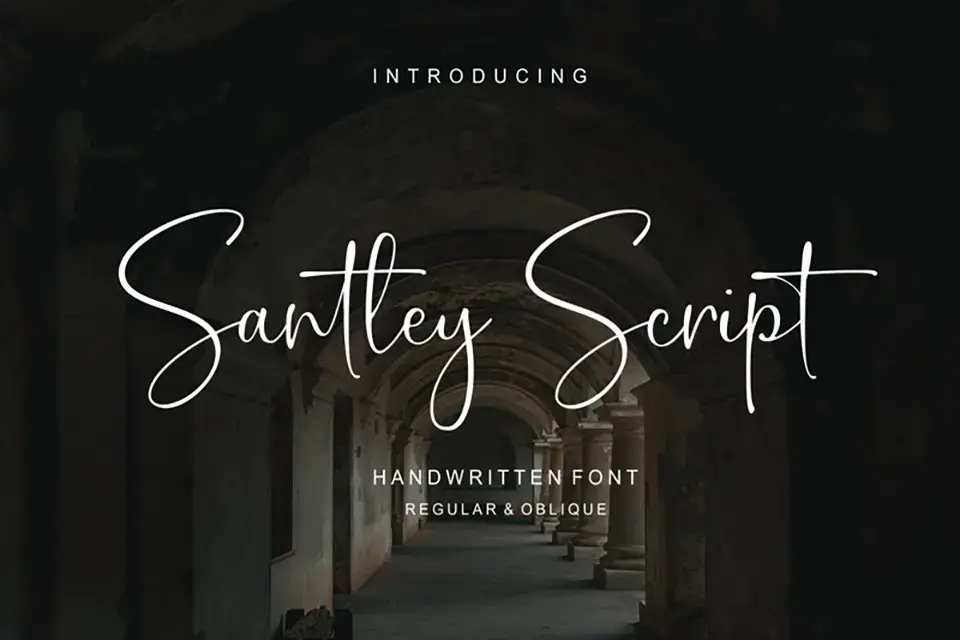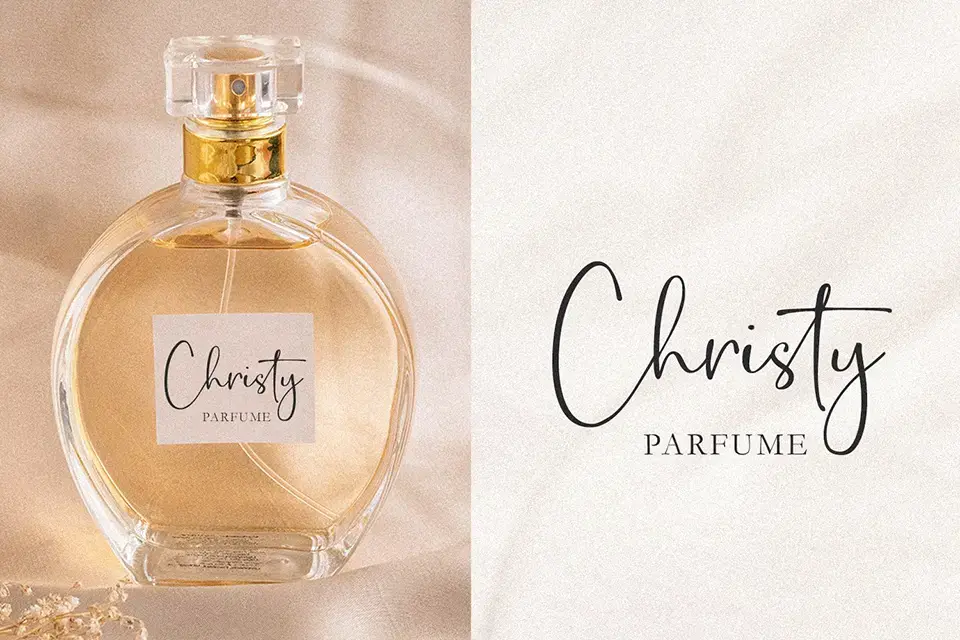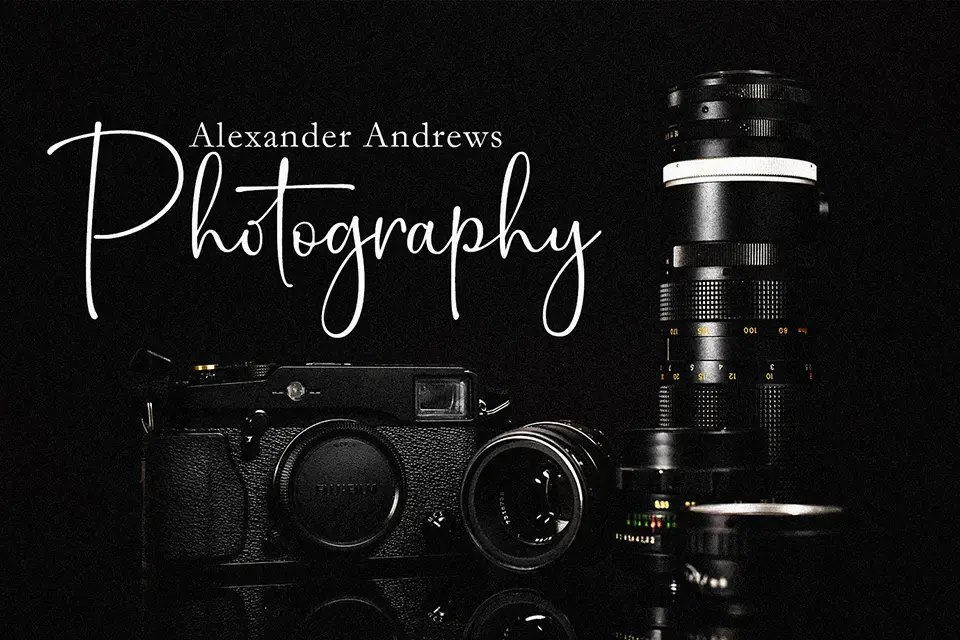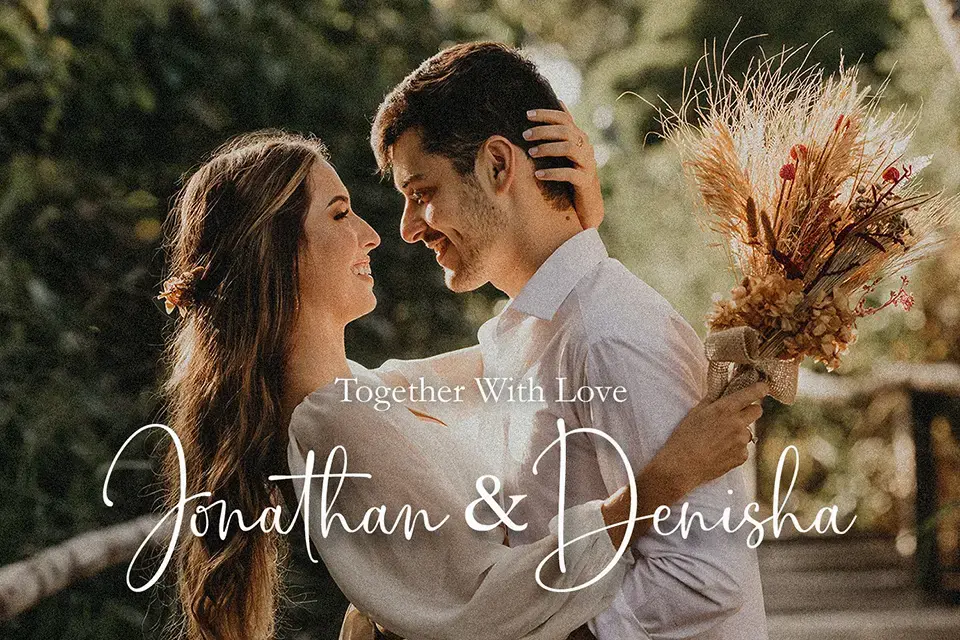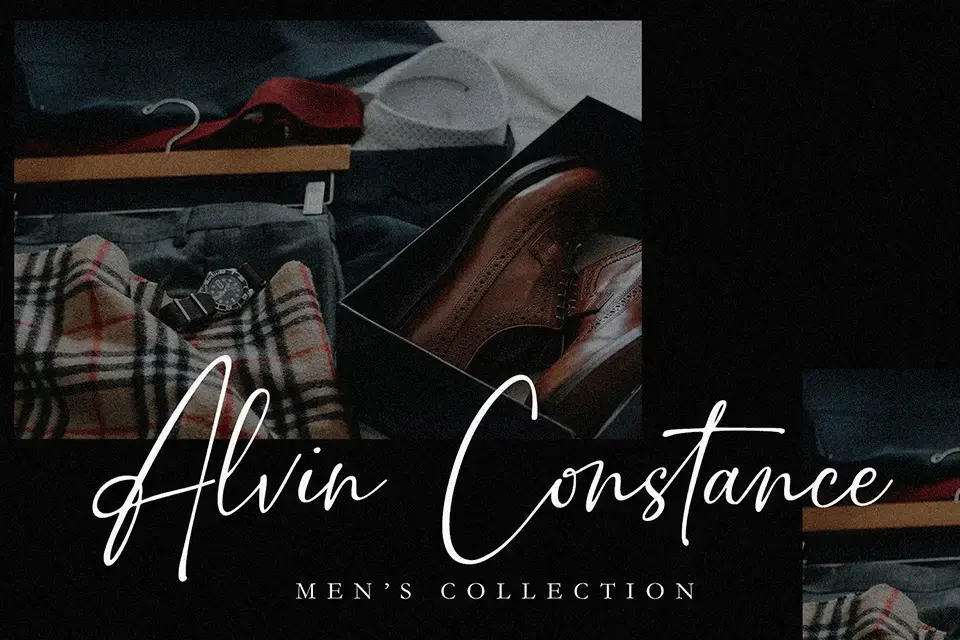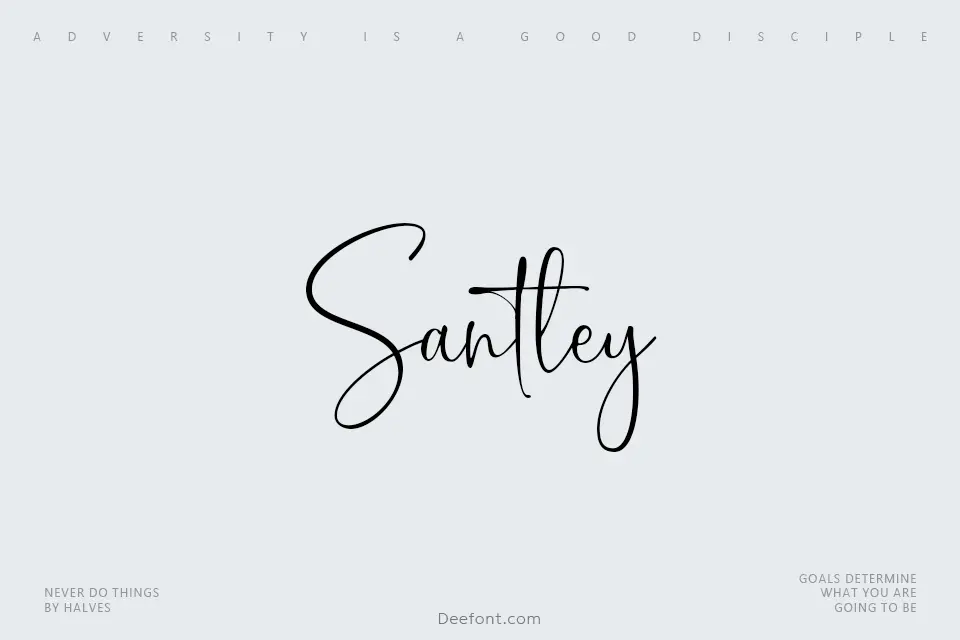
Santley Font
Santley is an exquisite handwritten script typeface that combines delicate, flowing lines with sophisticated charm. Designed with an extra-light weight, this elegant cursive font features soft, graceful strokes that create a balance between readability and decorative appeal. The font's thin penmanship style exudes refinement and personality, making it perfect for wedding invitations, branding materials, logo design, packaging, and editorial projects. Its refined handwriting-like aesthetic brings a humanistic touch to any design, while maintaining enough legibility for headlines and display purposes. Ideal for designers seeking to add elegance and a personal touch to their creative work.